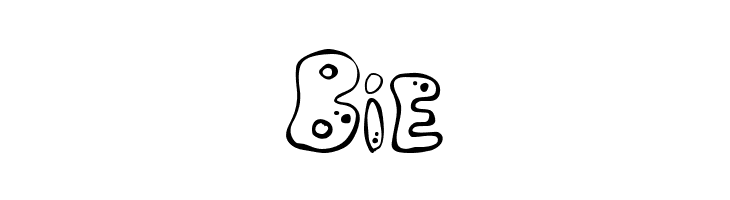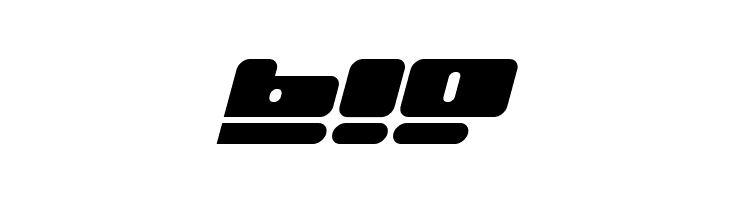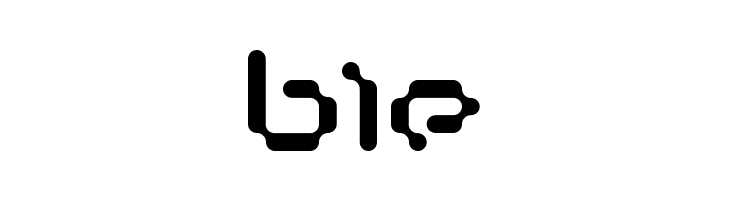
( Fonts by Uddi Uddi )
A playful, bubbly font with rounded edges and quirky cutouts.
A modern, elongated font with narrow characters and rounded edges.
( Fonts by TarmSaft Font Factory - http://www.aska.nu/tarmsaft/ )
A bold, futuristic font with rounded geometric shapes and a cohesive design.
( Fonts by www.sweeep.fr - Damien Gosset )
A bold, playful handwritten font with rounded edges and a casual style.
( Fonts by Levi Halmos )
A bold, futuristic italic font with segmented, rounded strokes.
( Fonts by www.koenhachmang.com - Glitch )
A futuristic, geometric font with bold, rounded characters.